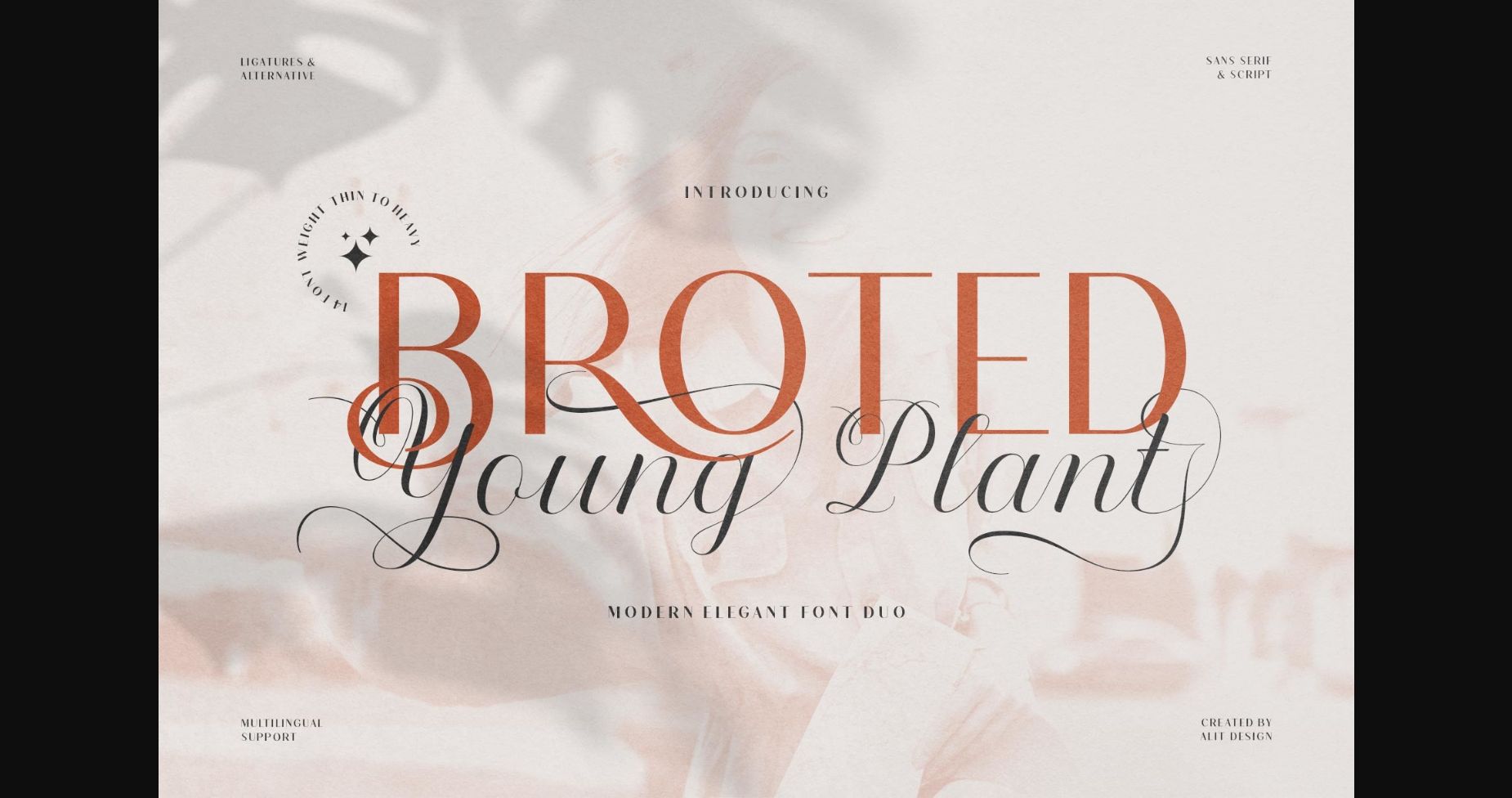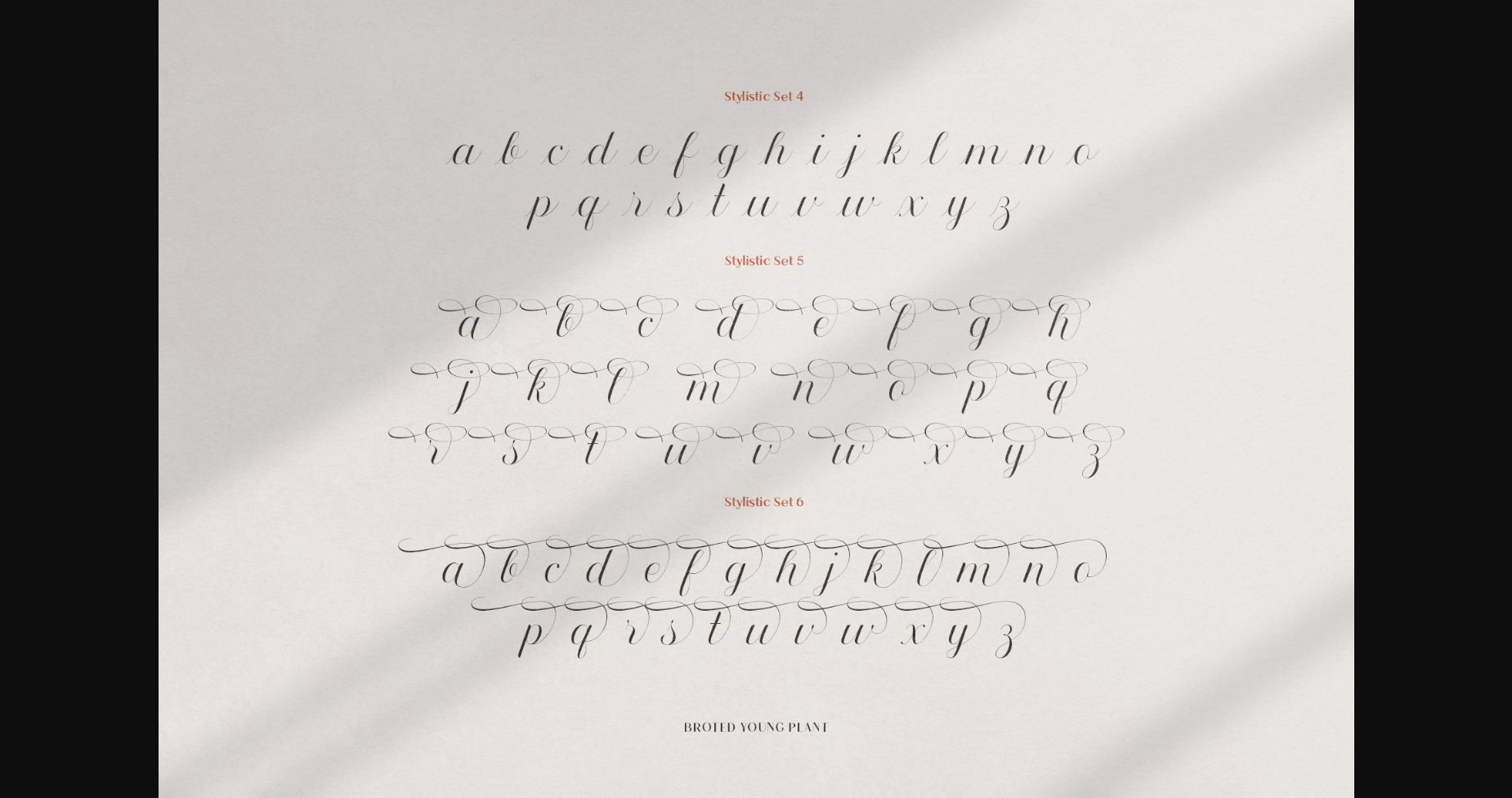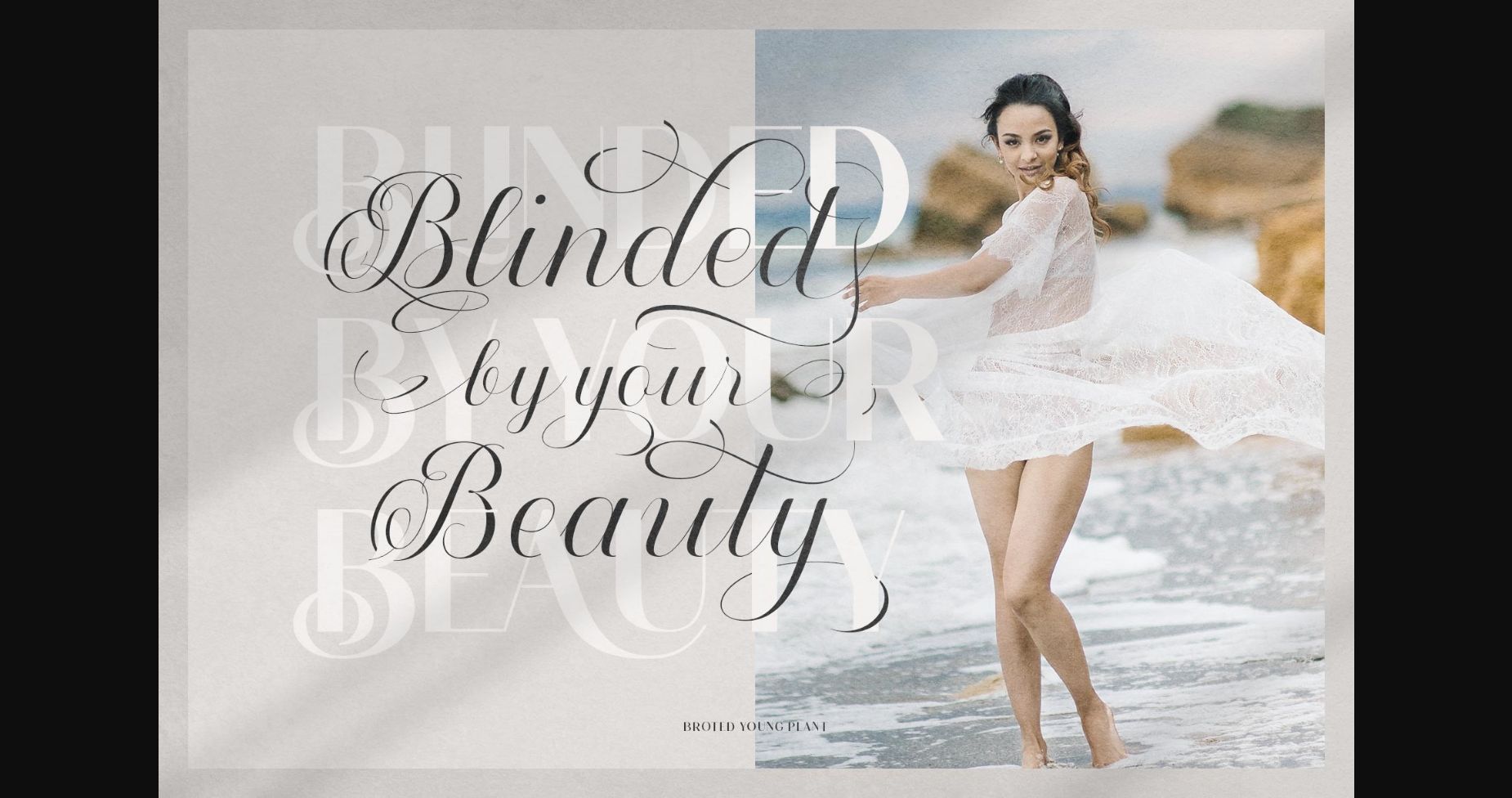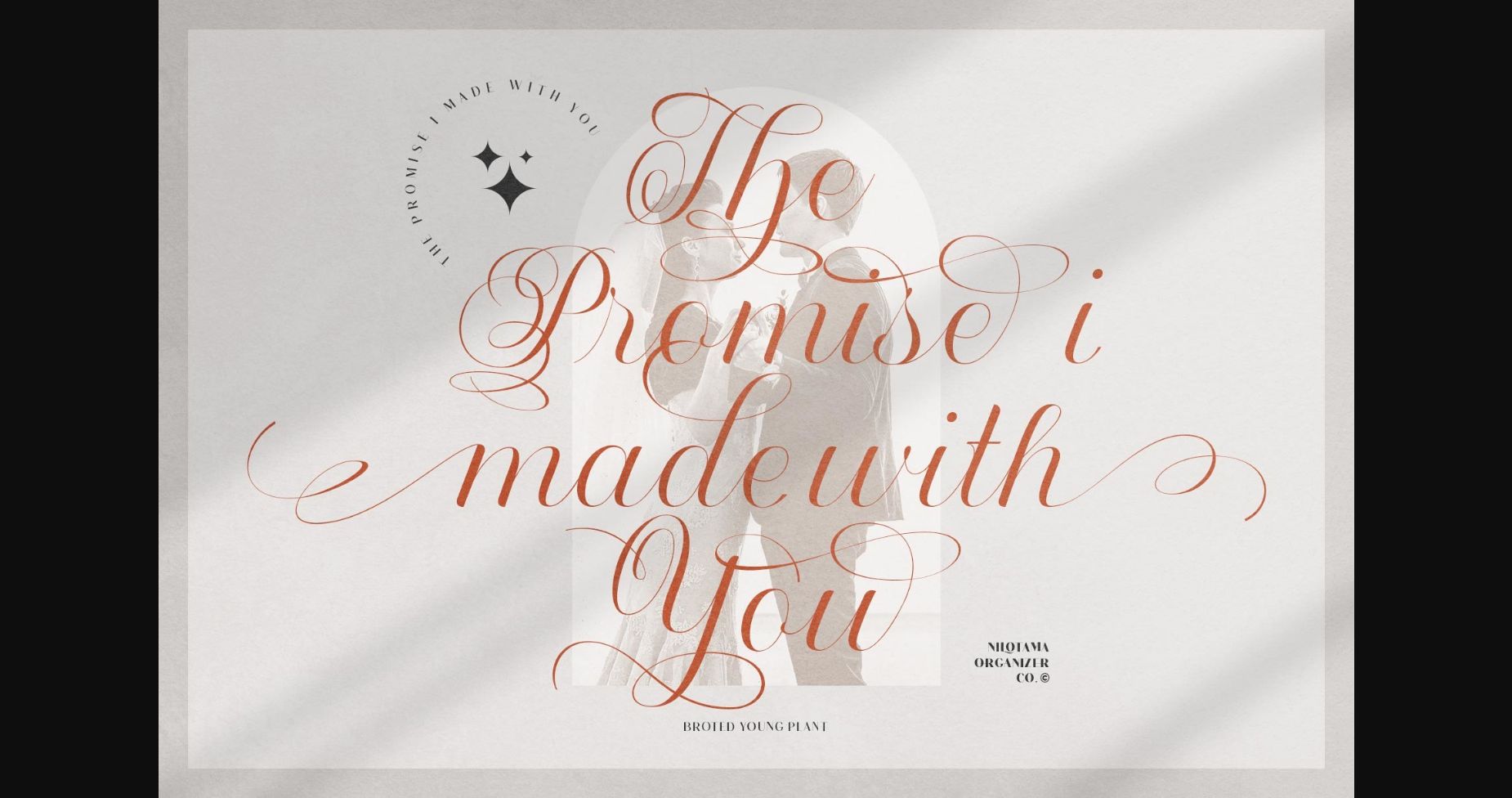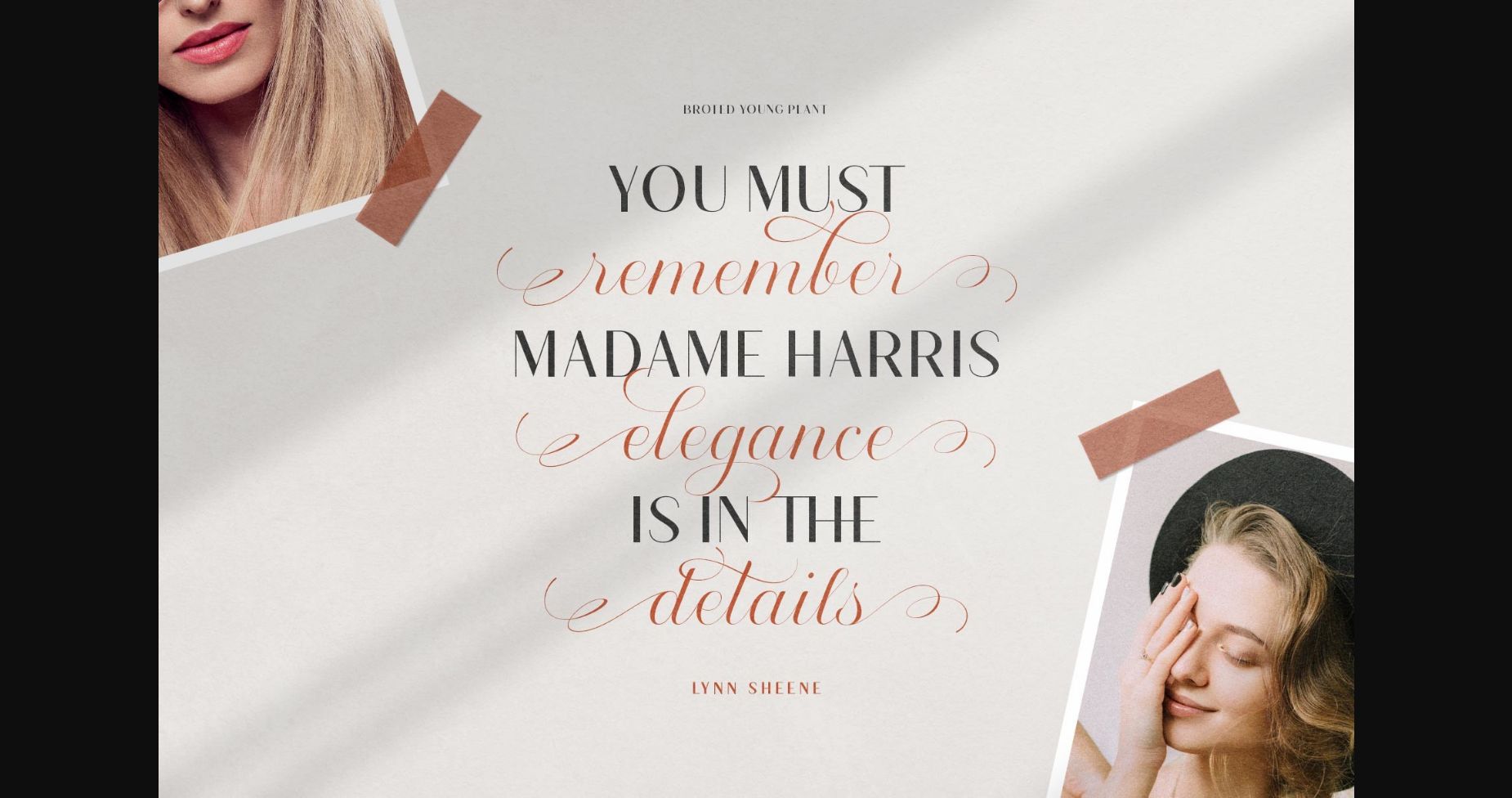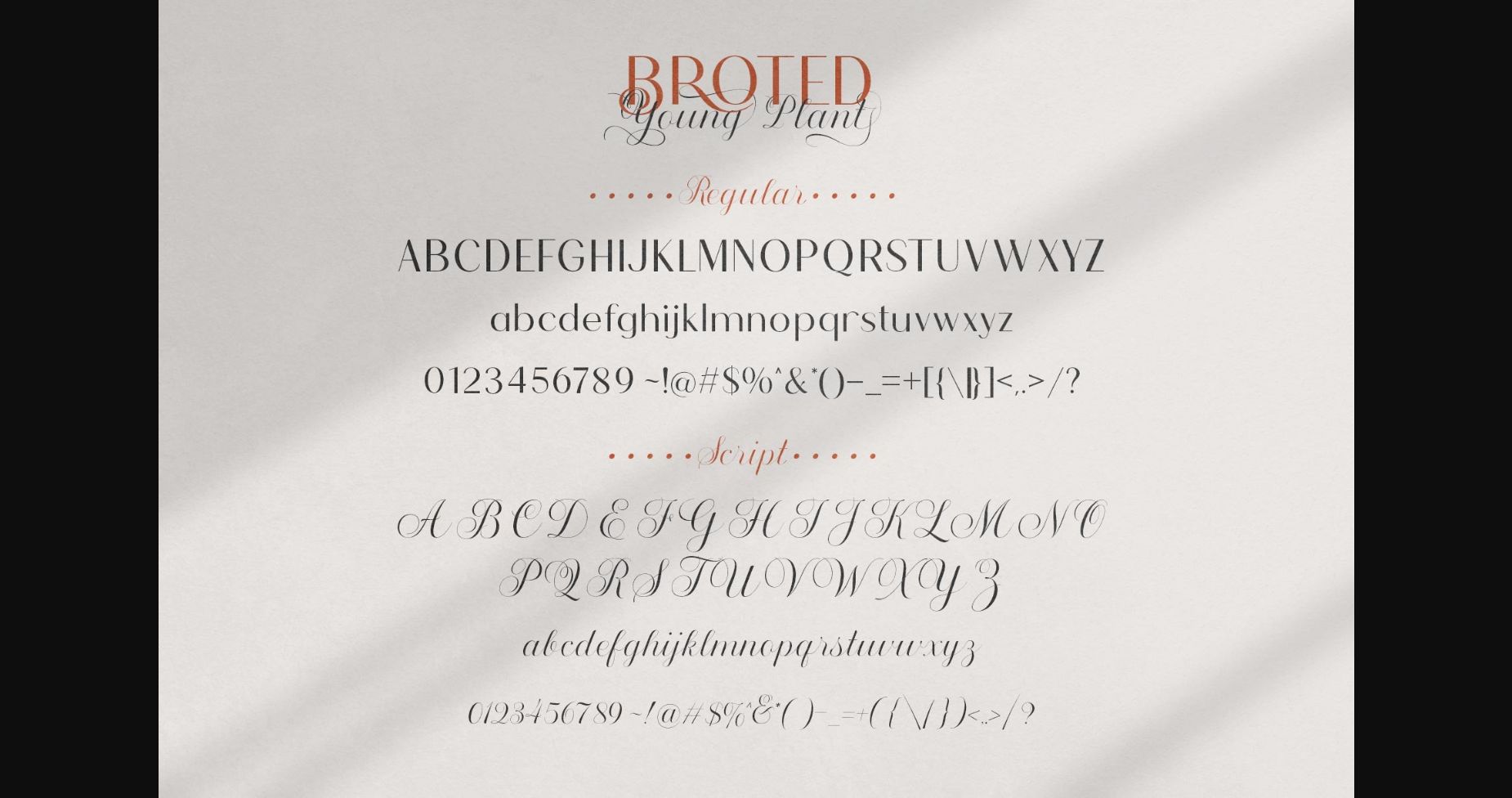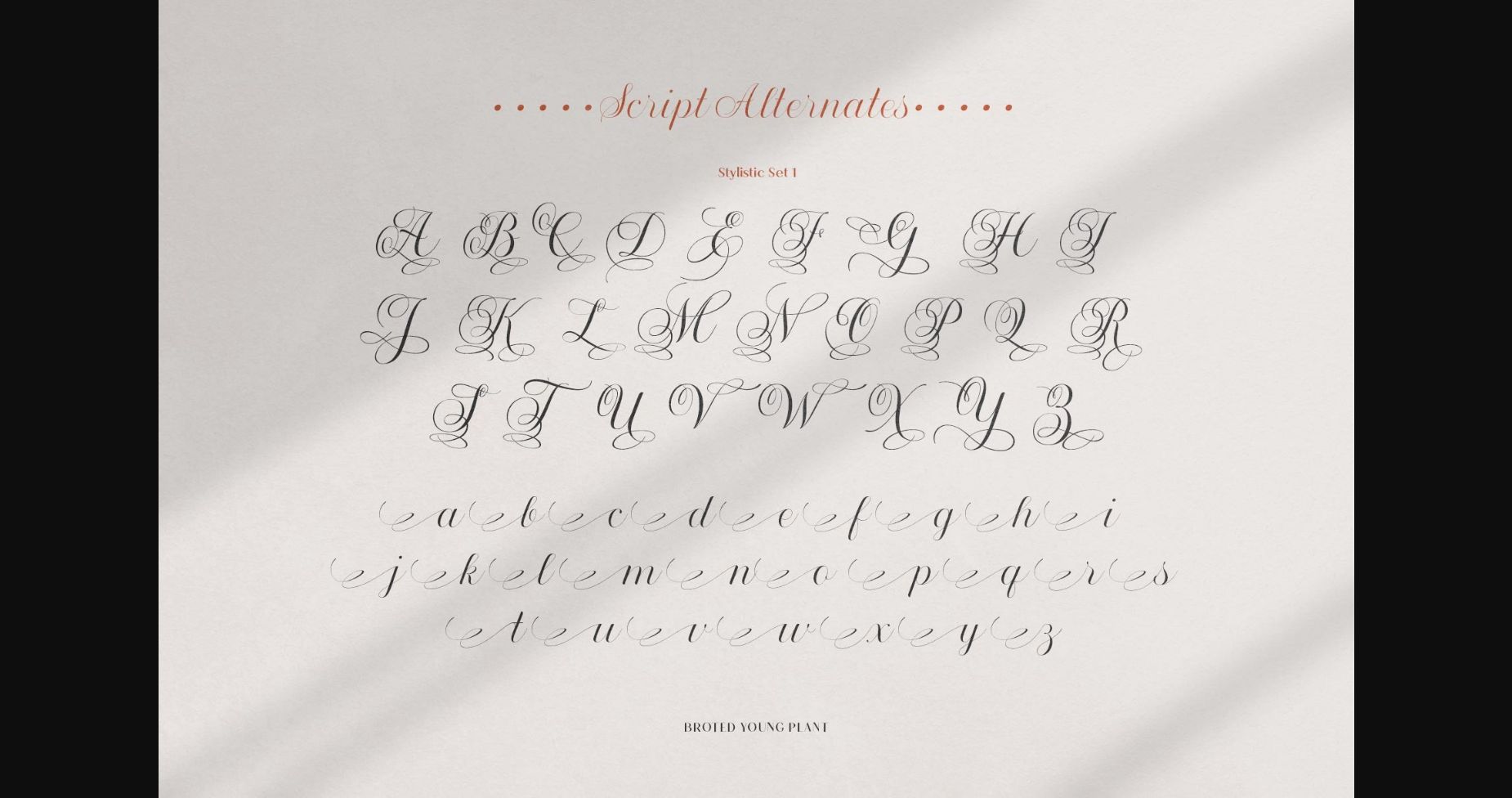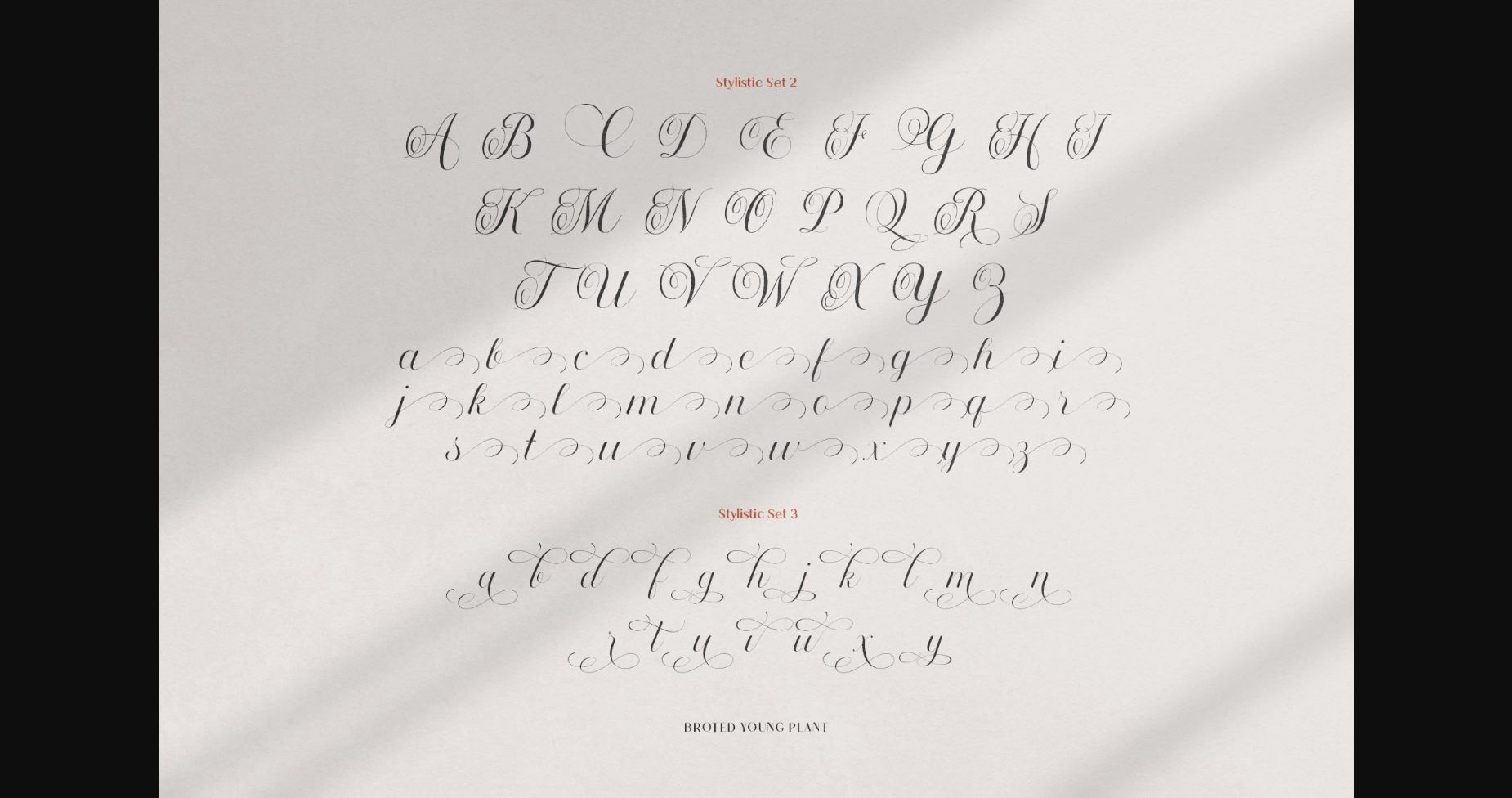
Broted Young Plant Font
About Broted Young Plant Font
Broted Young Plant consists of two fonts designed to complement each other perfectly. Together or apart, these fonts are ideal for adding a chic and cheery touch to your crafts. This font is PUA encoded which means you can access all glyphs and swashes with ease!